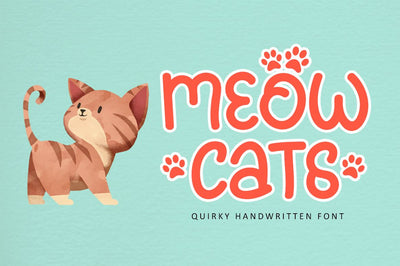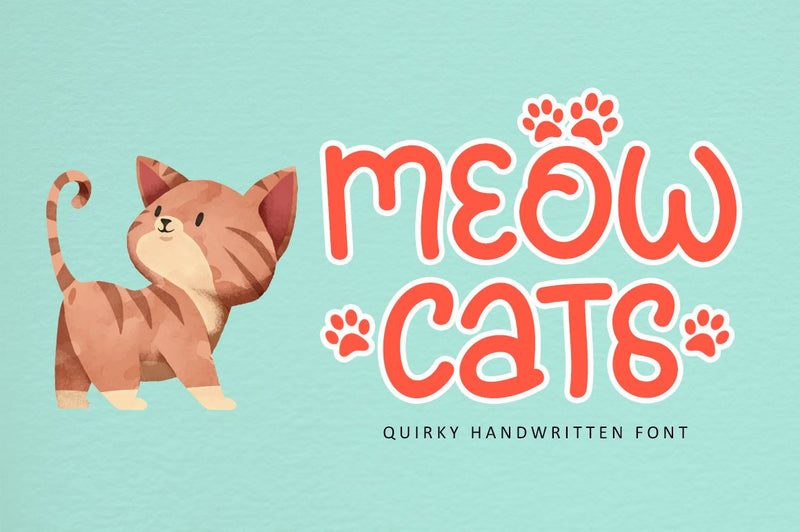
Meowcats - Handwritten Font
Meowcats is a distinct, elegant display font that blends traditional influences into a contemporary aesthetic. Its well balanced Latin details contain distinctive contrasts. Use Meowcats to achieve an exquisite, yet subtle look and maximum versatility. Fall in love with the cute paw-details in the PUA-encoded characters!